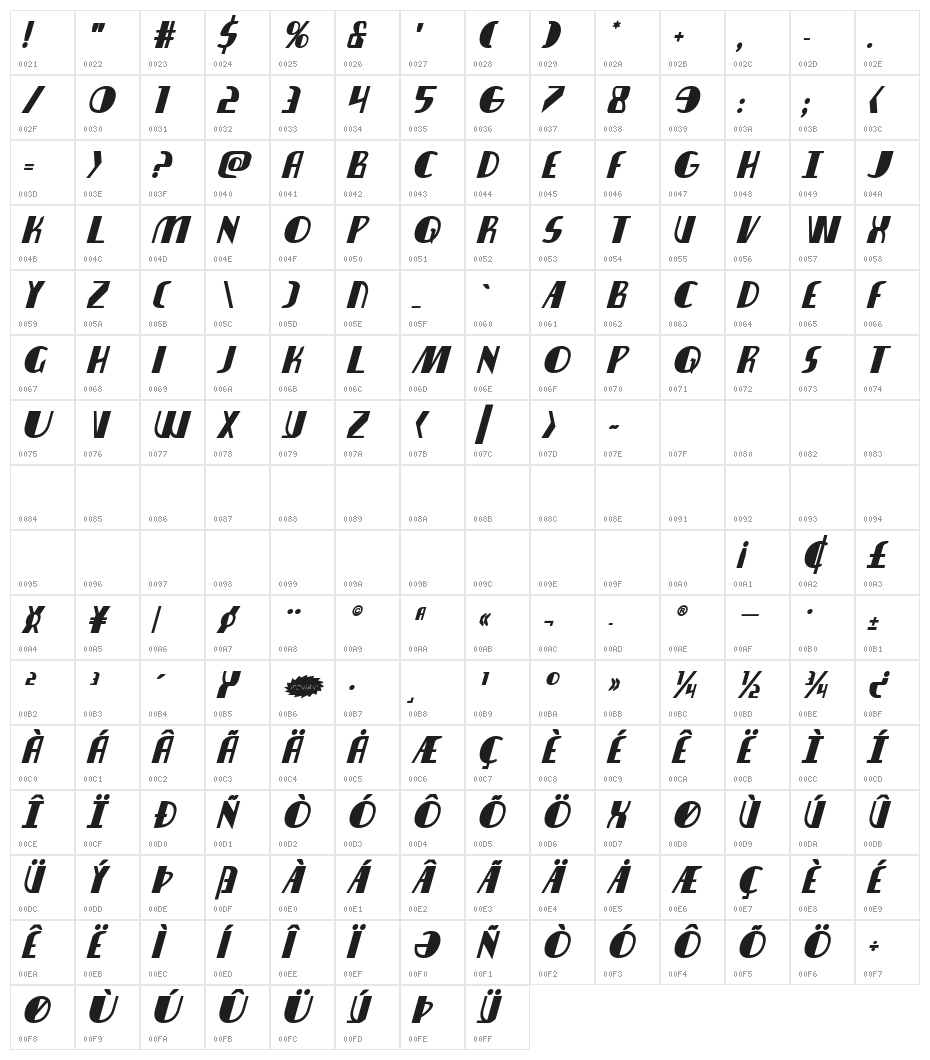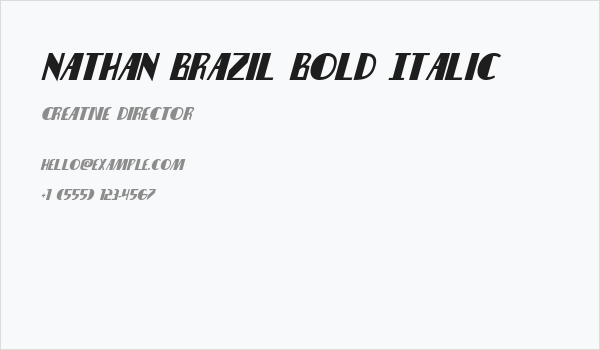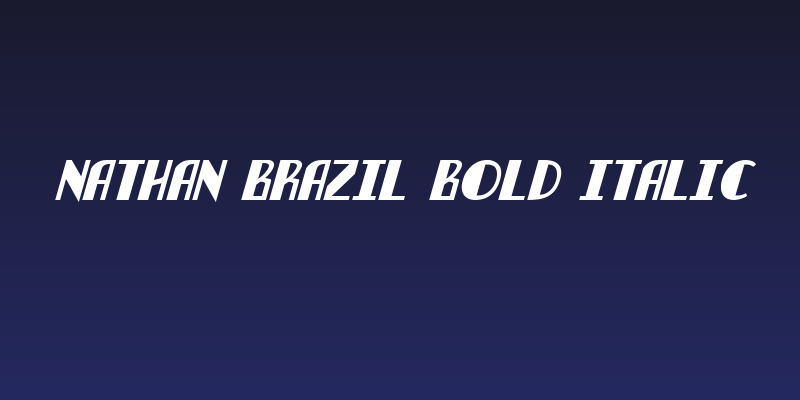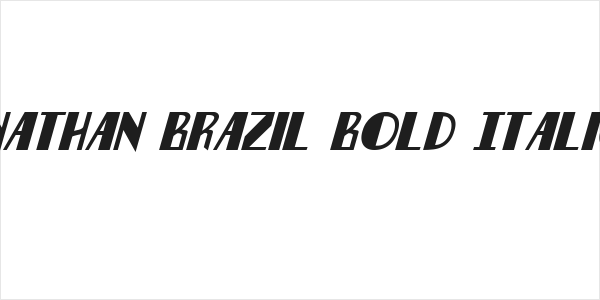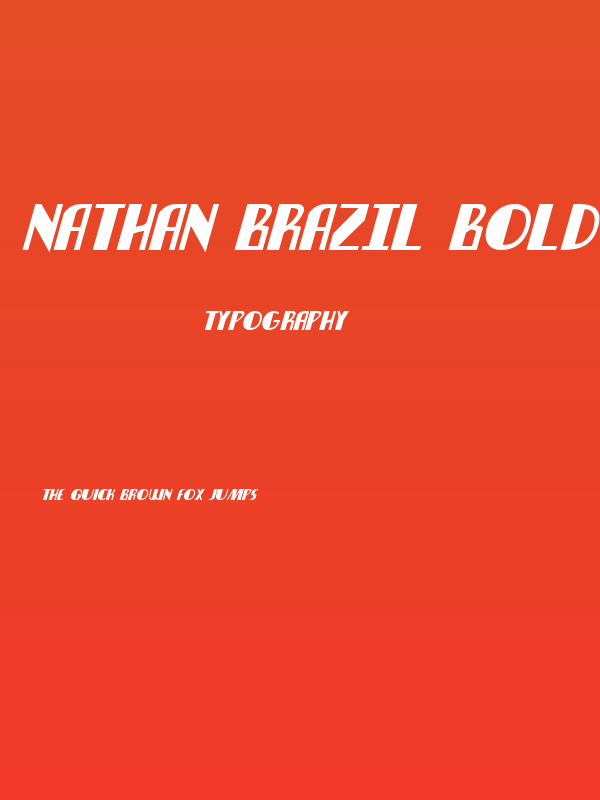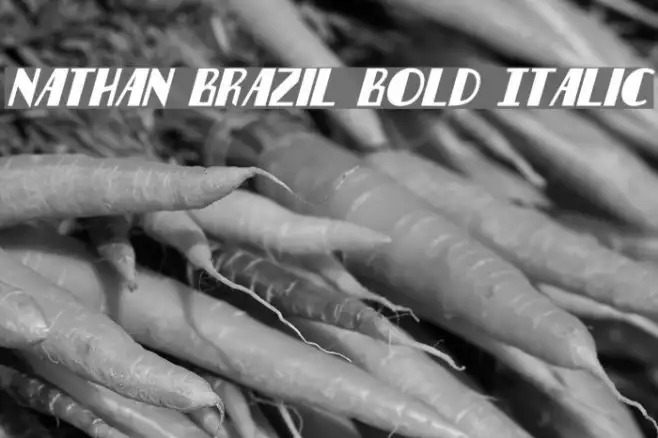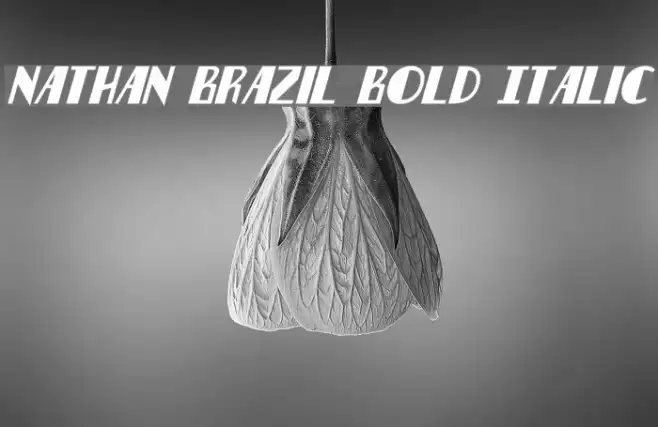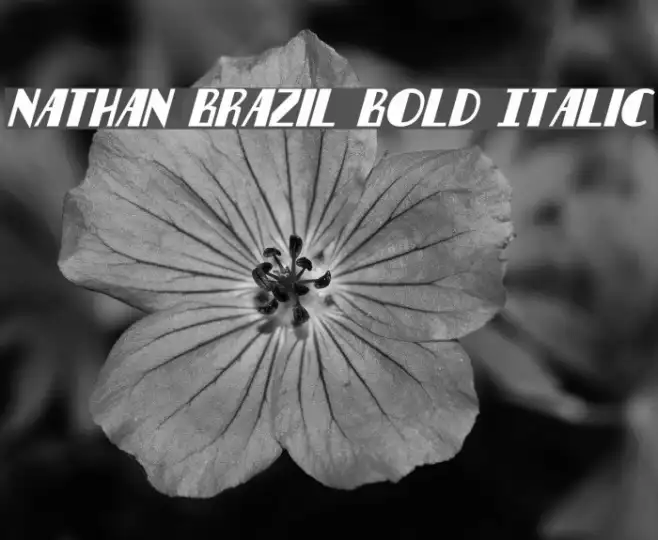
Nathan Brazil Bold Italic Font
Nathan Brazil Bold Italic Description
This typeface exhibits a bold and italicized style, characterized by its dynamic and slanted letterforms. The strokes are thick and consistent, providing a strong visual impact. The characters are designed with sharp angles and a slight forward tilt, giving a sense of movement and urgency. The uppercase and lowercase letters maintain a cohesive look, while the numerals and special characters are crafted to match the overall aesthetic. This font is suitable for projects that require a bold statement and a modern touch.